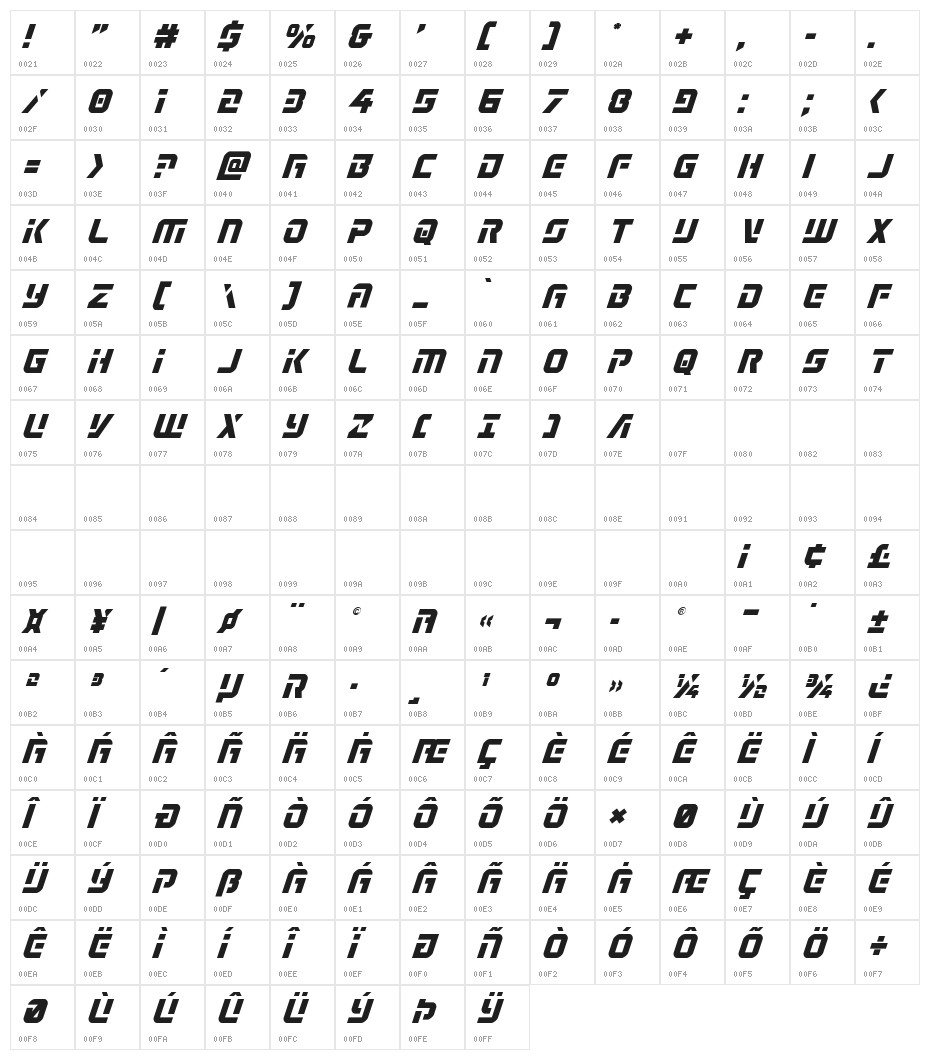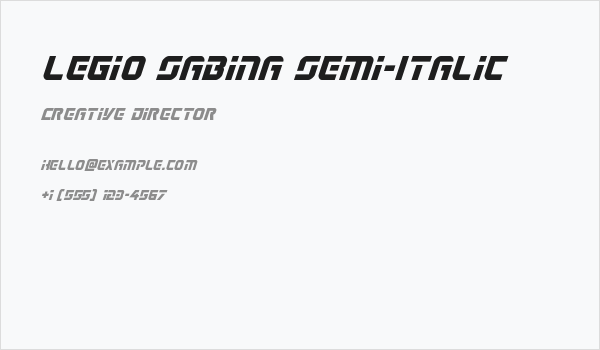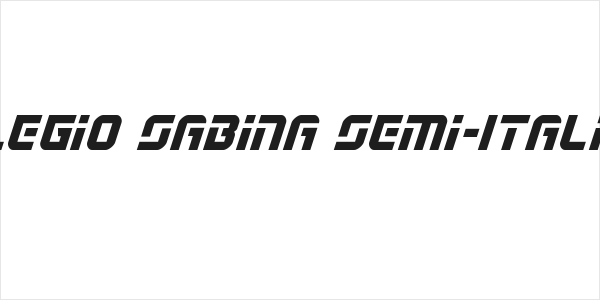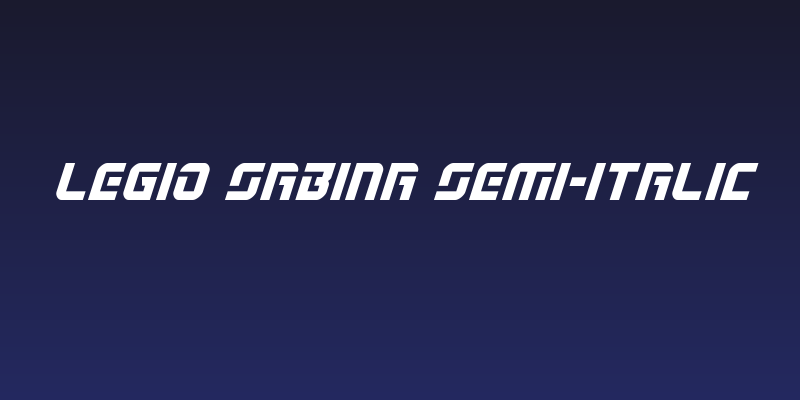
Legio Sabina Semi-Italic Font
Legio Sabina Semi-Italic Description
This font features a bold and dynamic design with a semi-italic slant, giving it a sense of motion and energy. The characters are angular and geometric, with sharp edges and a futuristic feel. The uppercase and lowercase letters maintain a consistent style, while the numerals and special characters complement the overall aesthetic. The font's boldness and unique style make it stand out, suitable for projects that require a modern and impactful look.
| Proposed Projects | Ideal for branding, sports team logos, video game titles, and sci-fi themed projects. |